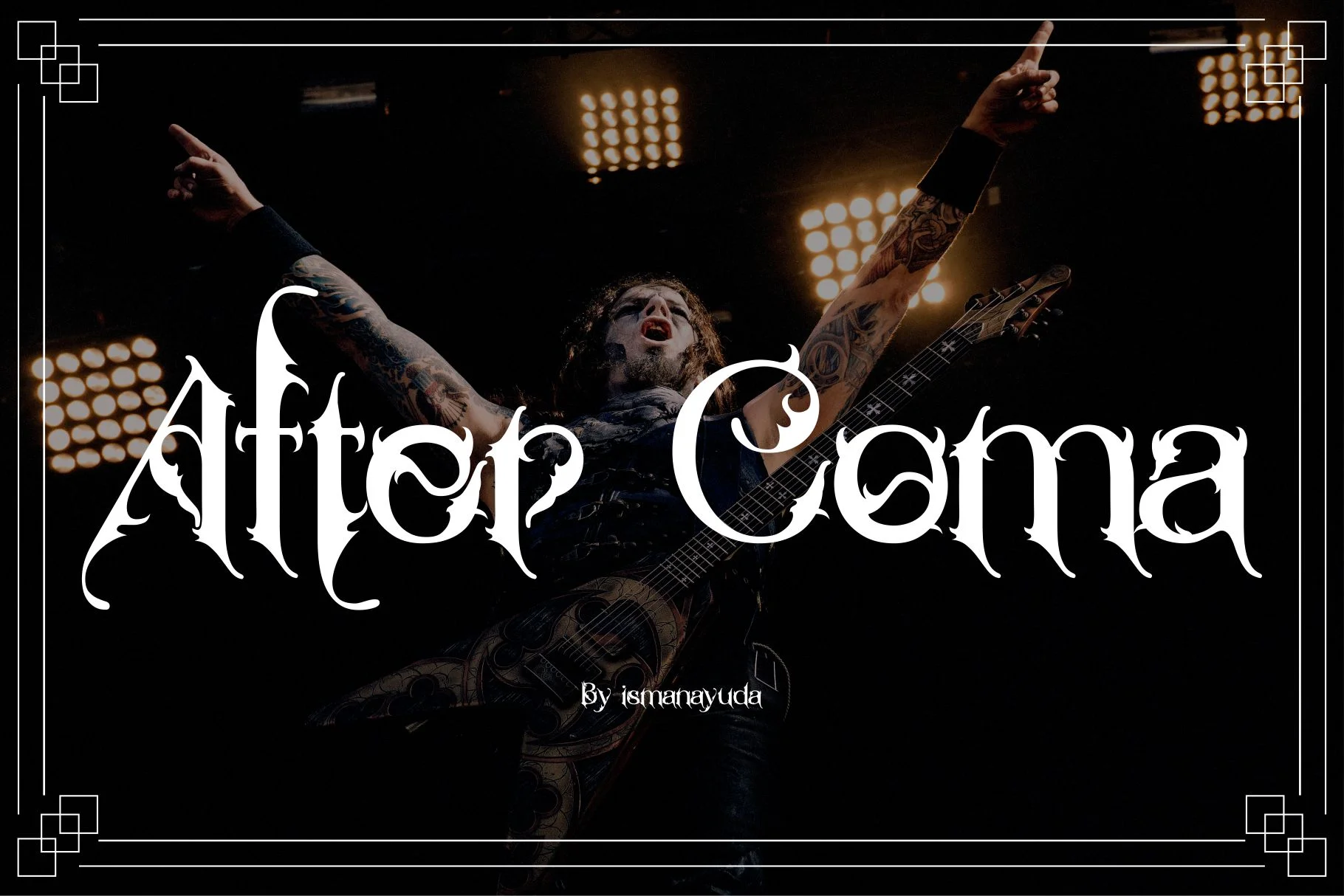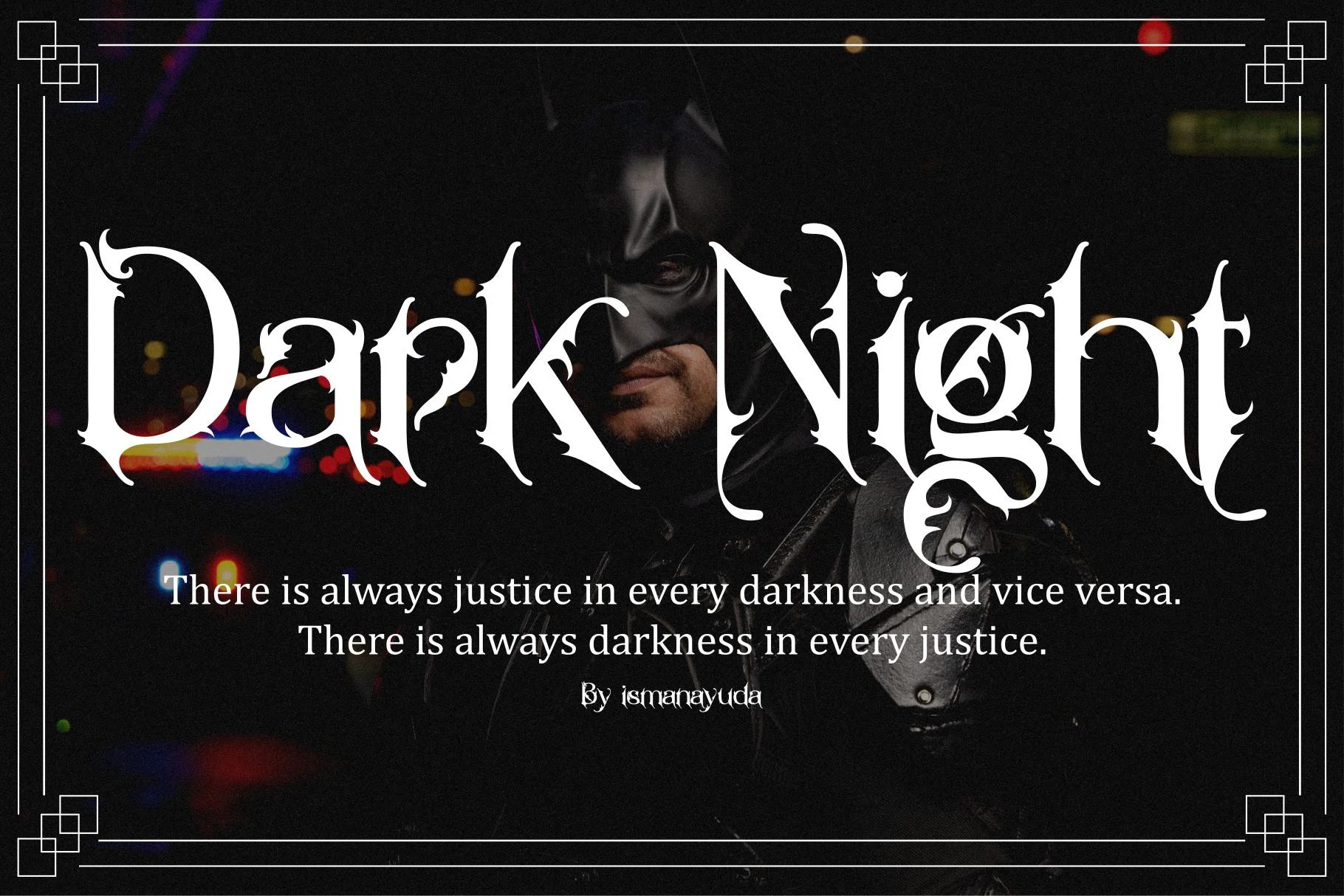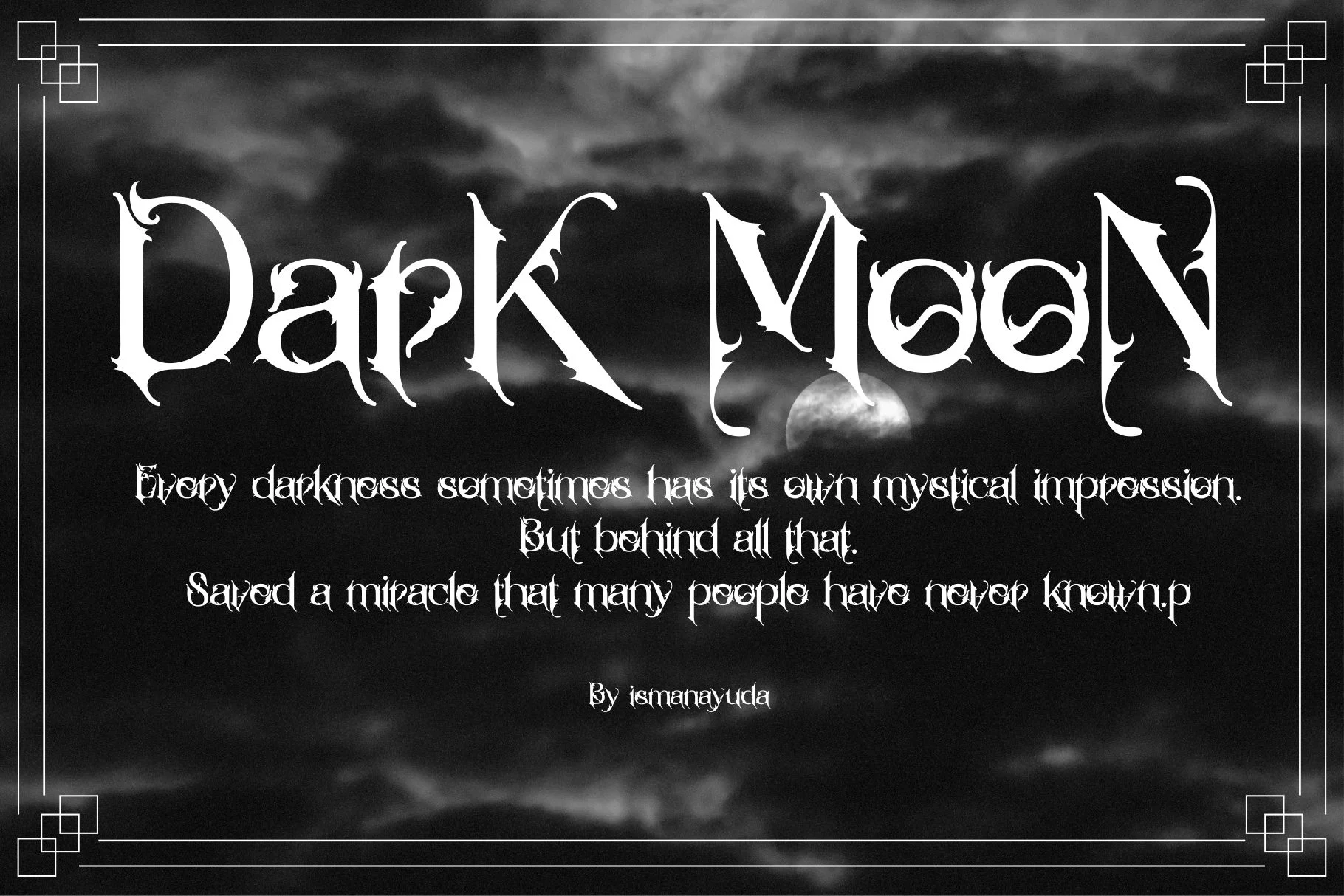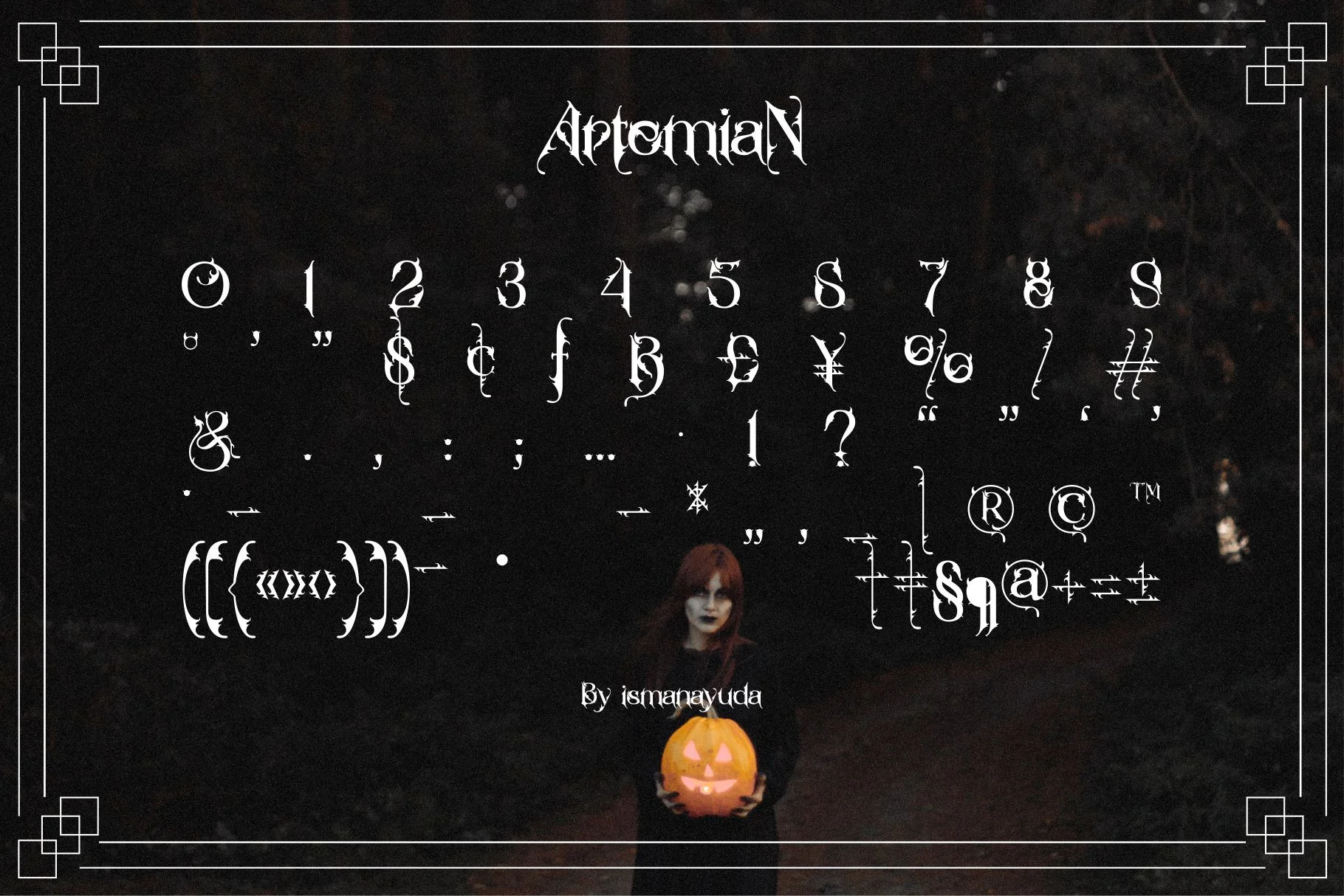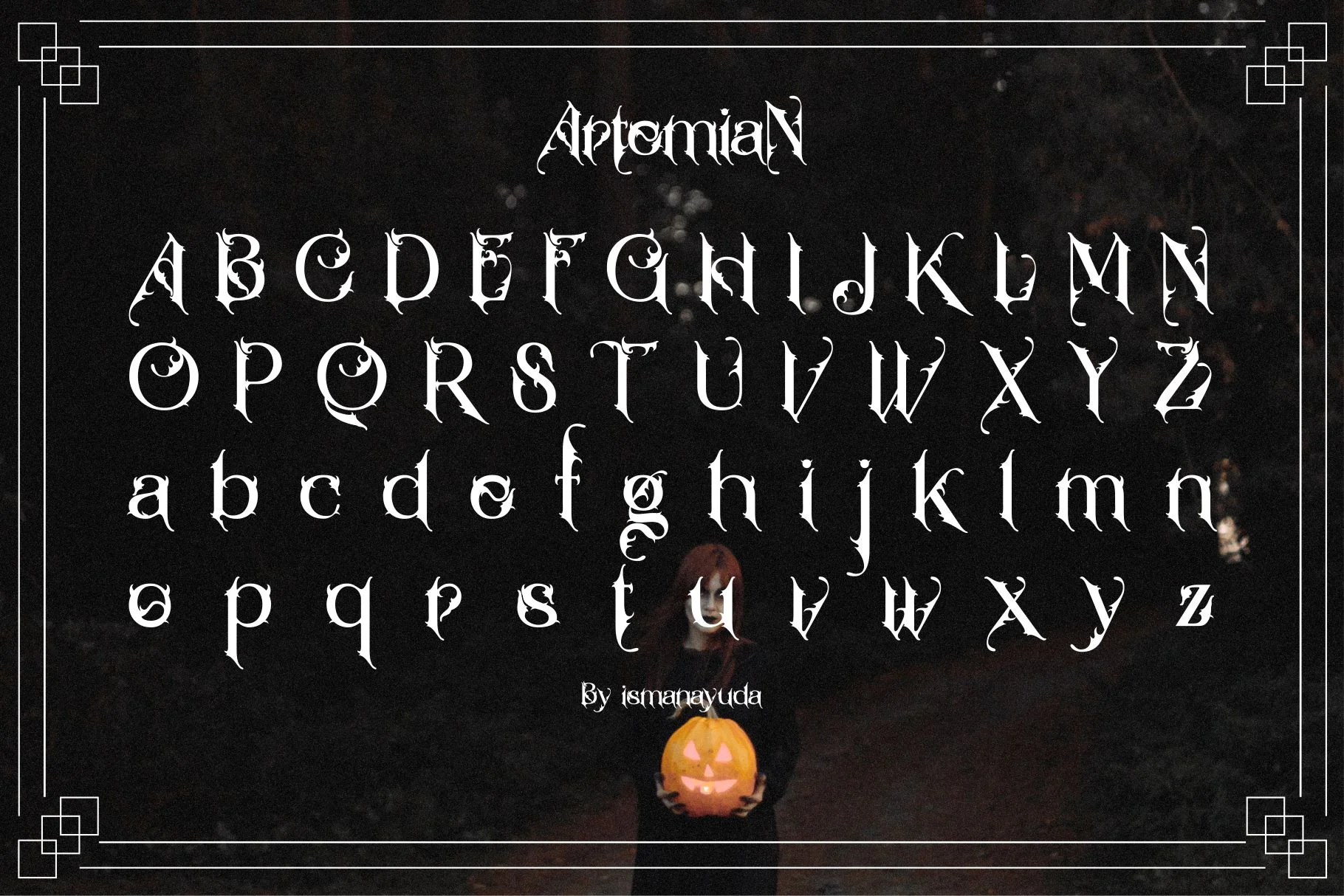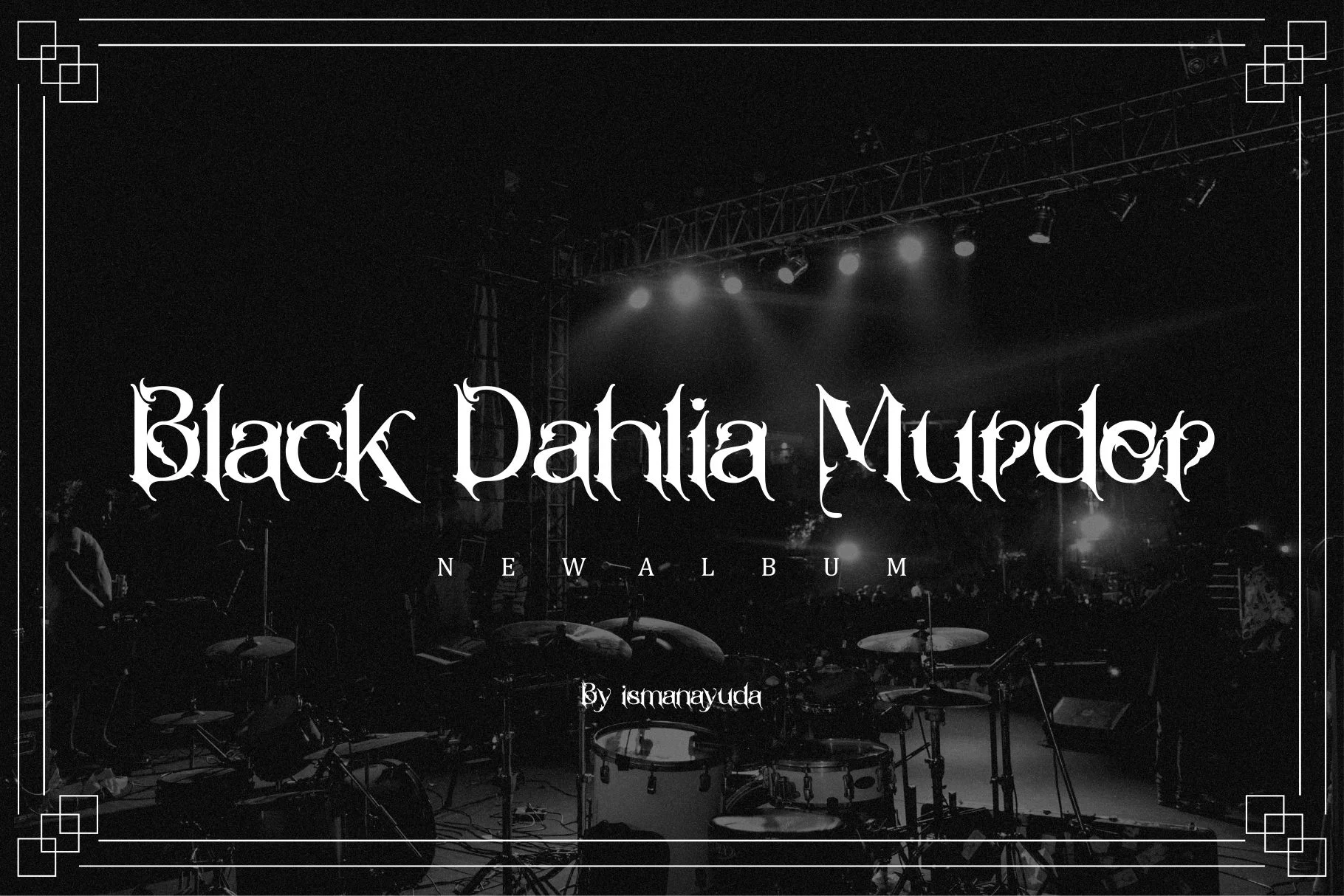
Artemian
Artemian, a modern Blackletter typeface designed by Ismanayuda. It features a dark, aggressive, and mystical aesthetic, often associated with "Blackletter Culture."
Key Visual Characteristics:
- Sharp and Angular Edges: The letters have pointed, thorn-like terminals and sharp serifs, giving it a menacing and gothic appearance.
- Decorative Accents: Noticeable spikes and "horn" elements are integrated into the letterforms (such as the 'A', 'p', and 'n'), which are common in metal music branding and dark fantasy designs.
- High Contrast: The typeface utilizes a strong contrast between thick vertical stems and thin, sharp decorative lines.
- Intricate Details: Small details, like the dot on the 'i' being replaced by a stylized droplet or diamond shape, add to its unique identity.